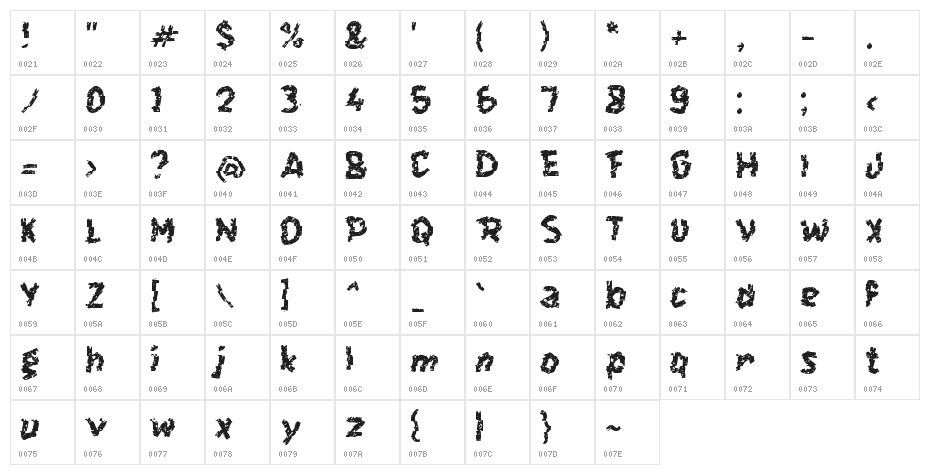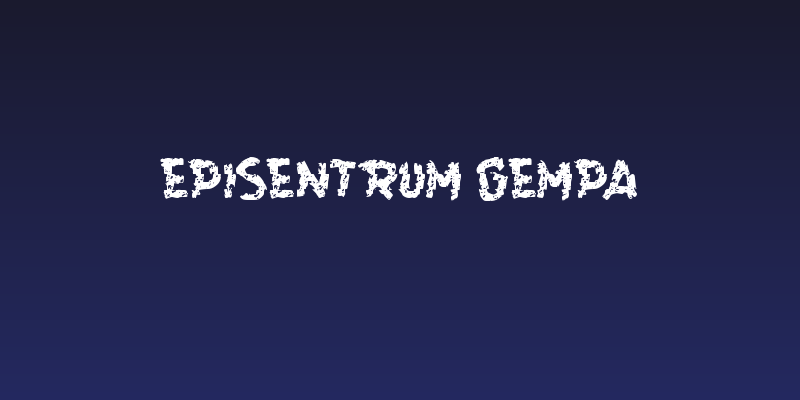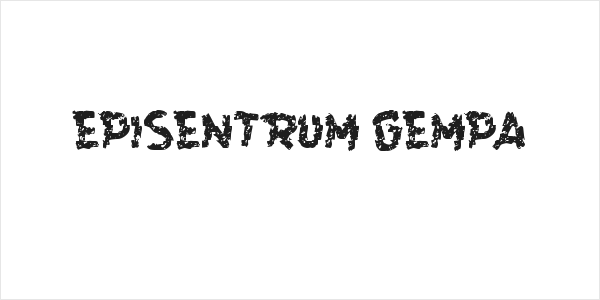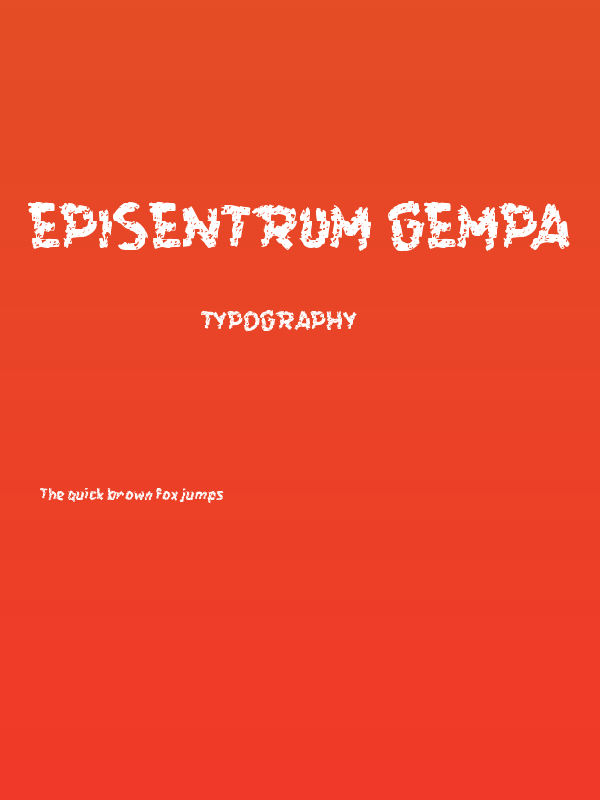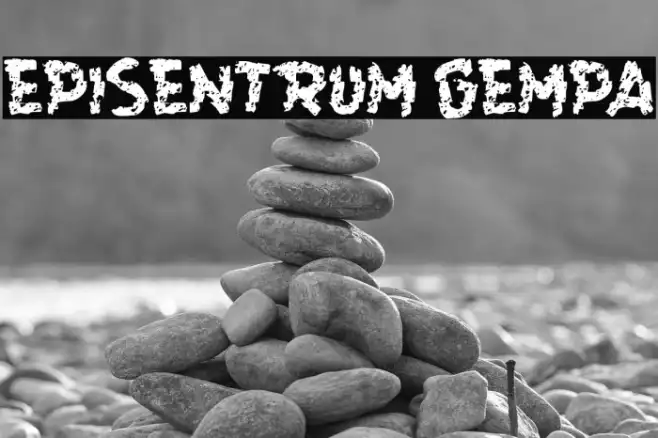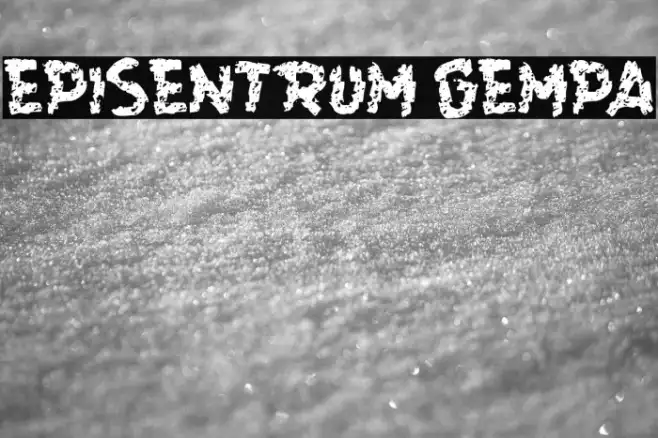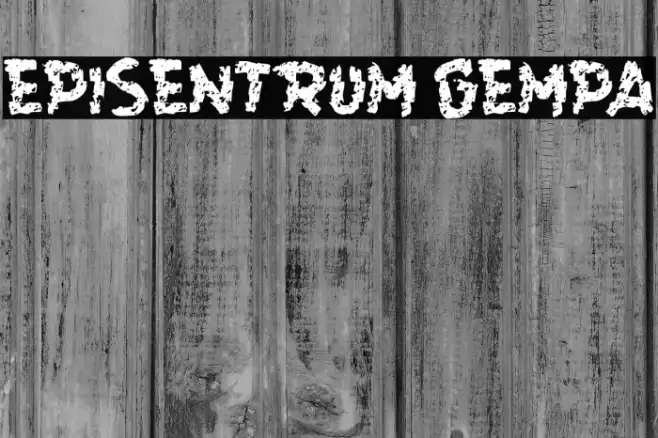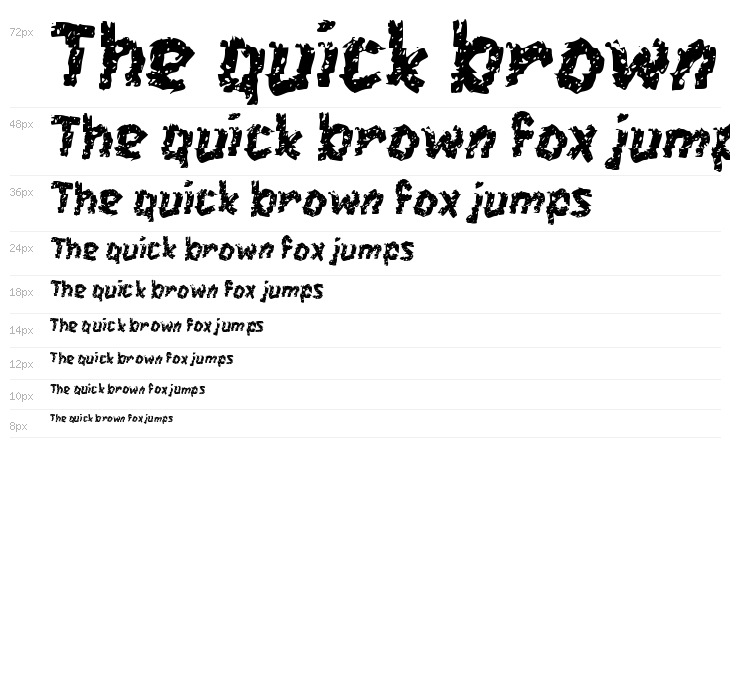
EPISENTRUM GEMPA Font
EPISENTRUM GEMPA Description
This font features a bold and rugged design with a distressed, grunge texture that gives it a raw and edgy appearance. The characters are irregular and appear as if they have been weathered or eroded, creating a sense of movement and chaos. The uppercase and lowercase letters maintain a consistent style, with jagged edges and uneven surfaces. The numbers and special characters follow the same aesthetic, making the font cohesive and visually striking. Its unique style is perfect for projects that require a bold statement or an urban, gritty feel.
| Overall Style | Grunge, Urban, Edgy |
| Proposed Projects | Ideal for album covers, posters, streetwear branding, and urban-themed designs. |